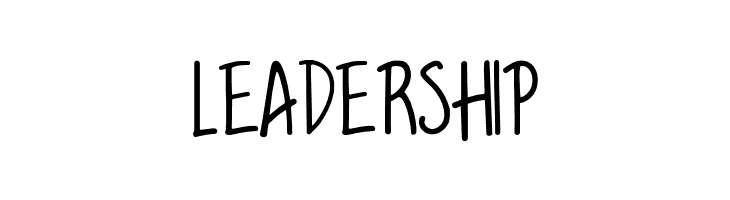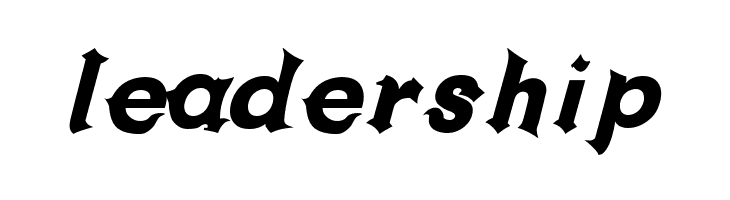
A bold, graffiti-inspired font with sharp, angular edges and dynamic styling.
A bold, graffiti-style font with sharp angles and dynamic curves.
A playful, casual handwritten font with smooth, flowing letterforms.
A playful, casual handwritten font with smooth, flowing lines.
A bold, modern font with a geometric structure and strong visual impact.
A bold, vintage-inspired serif font with strong, heavy strokes.
A bold, vintage-style font with a three-dimensional shaded effect.
A bold, decorative font with a retro, shaded 3D effect.
Whimsical pictorial font with vintage silhouette illustrations.
Whimsical pictorial font with silhouette illustrations for each character.
A classic serif font with bold, elegant curves and high contrast.
An elegant italic font with high contrast and flowing curves.
Cartoonish, character-based font with grandparent and child illustrations.
A bold, cursive font with elegant, flowing lines and intricate details.
A bold, geometric font with a cracked stone pattern, offering a modern and edgy look.
A playful, bold font with a hand-drawn, casual style.
A playful, hand-drawn font with bold, rounded characters.
A decorative font featuring graphic arts and drafting tool symbols.
A pictorial font featuring diverse animal and insect illustrations as glyphs.
An abstract, decorative font with geometric line patterns.
A bold, gothic-style font with sharp, intricate details.
A playful, bold font with characters enclosed in rounded black shapes, ideal for creative projects.
A bold, playful font with rounded, thick strokes and a cartoon-like appearance.
A bold, geometric font with a vintage diner-inspired style.
A bold, geometric font with a vintage, industrial style.
A bold, geometric font with a strong, industrial feel.
A bold, shadowed font with a strong, geometric style.
A playful, decorative font with bold letters and floral embellishments.
A bold, shadowed decorative font with a three-dimensional effect.
A bold, pixelated font with a retro digital display style.
Ornate, tribal-inspired pictorial font with bold, intricate glyphs.